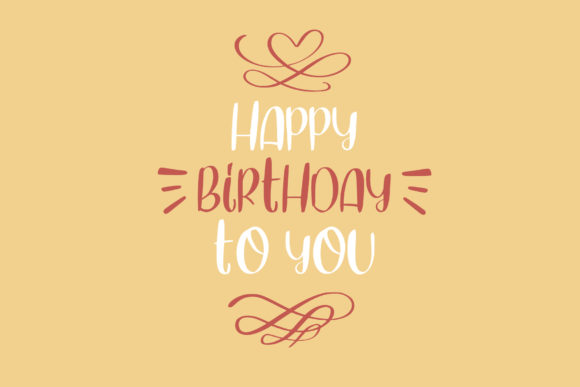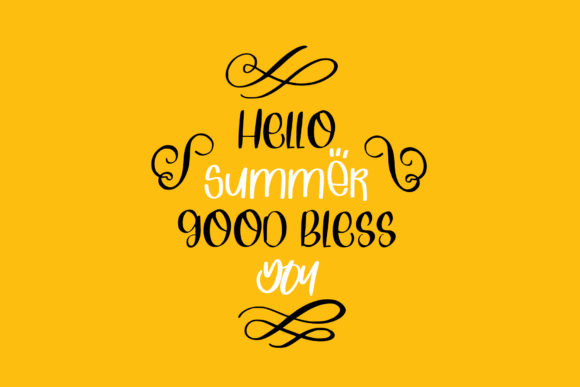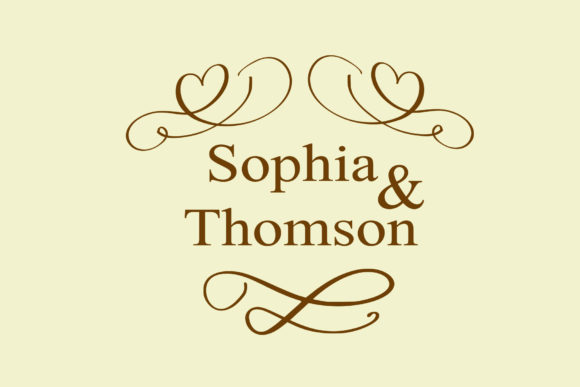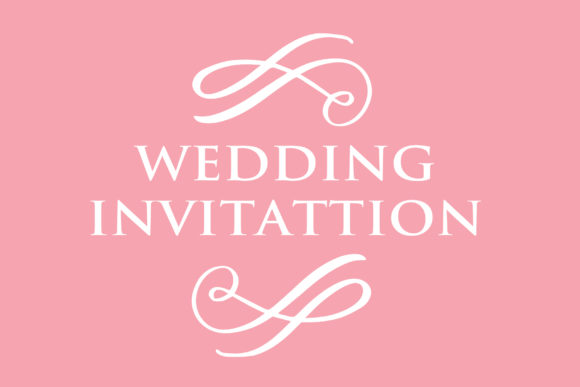
Dingbats Ornaments Font
Dingbats Ornaments is an incredibly useful dingbats font. It can be added to a variety of designs, both formal and informal, and it will most certainly elevate them.